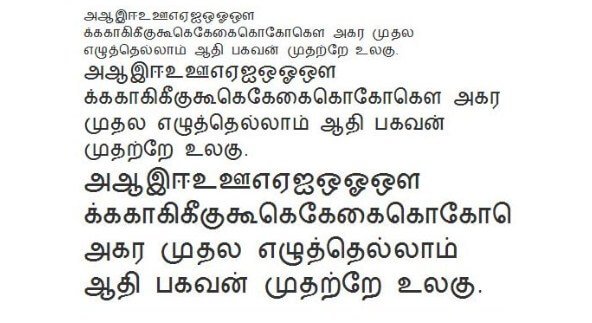
Latha Font is the simple and beautiful Tamil script typeface, UI designed this font script. Download and use this font typeface in Windows and Mac.
Latha Font
I feel you don’t need me to wax poetic about Latha font again, however, keep in mind that, this can be a wise font with various applications.